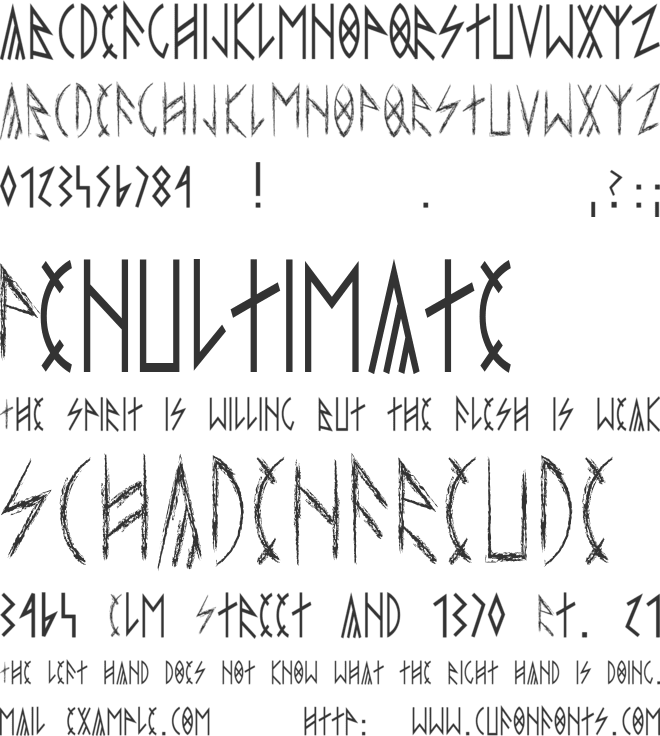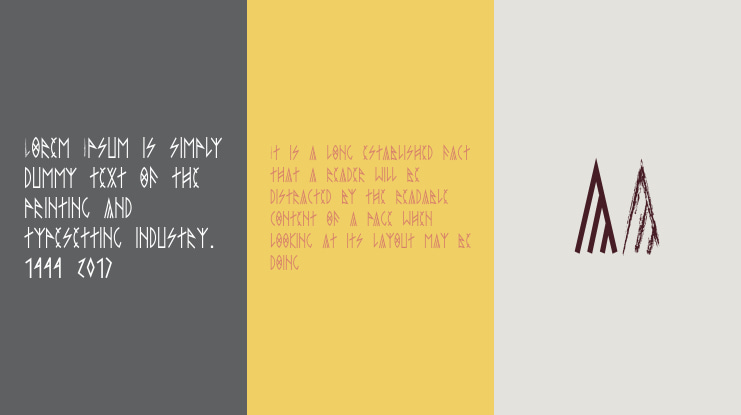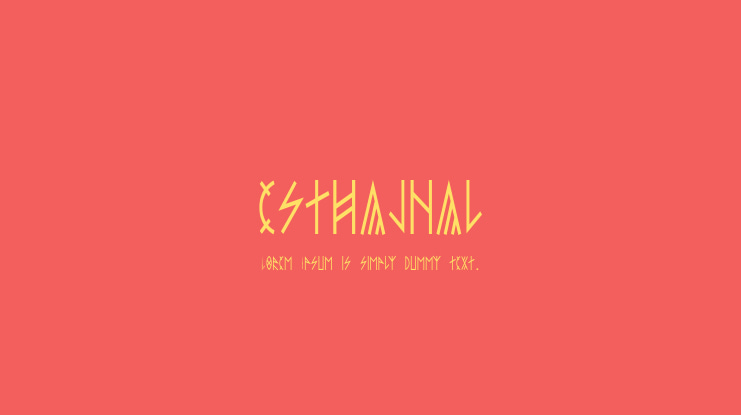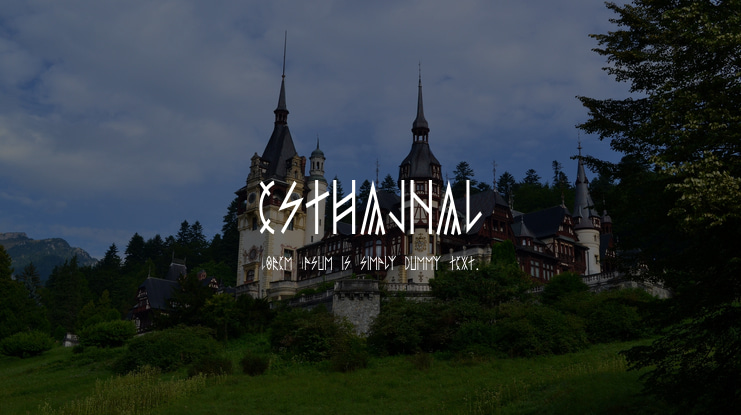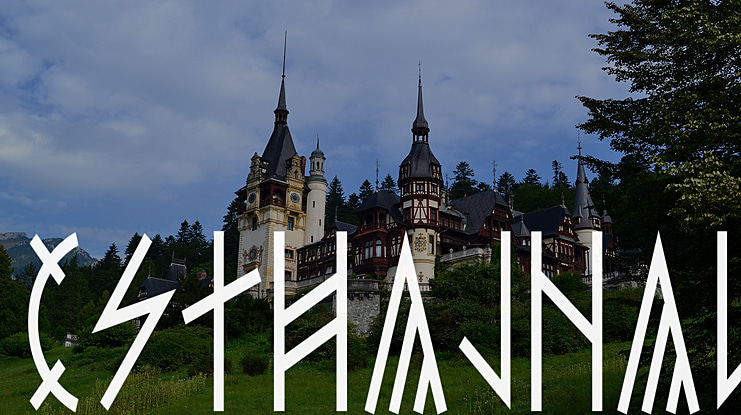
esthajnal Font
ESTHAJNALCSILLAG is inspired by ancient Hungarian runes (rovás) .Means Hesperus in Hungarian. This is the 3rd typeface of mine so far based on and inspired by these runes (the others are Hargita and Hun Legion). There were only capital letters in this kind of writings so I used up the place for caps as an eroded version of these letters